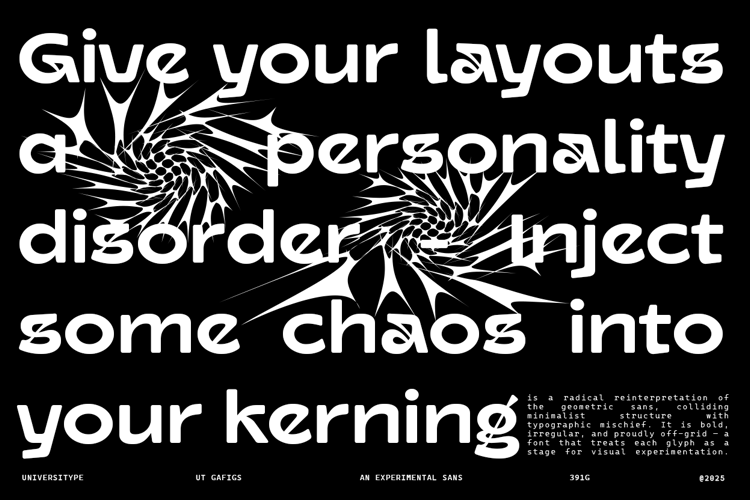
UT Gafigs Font
UT Gafigs is a daring sans-serif typeface that embraces the unexpected. This experimental font features a single weight with a minimalist yet expressive design, characterized by its irregular and dynamic letterforms. Perfect for designers looking to break away from conventional typography, UT Gafigs offers a geometric structure with a playful twist, supporting multiple languages and equipped with a full set of characters. Ideal for branding, print media, apparel, packaging, and web design, this font is your go-to for adding a bold and eye-catching touch to any creative project.